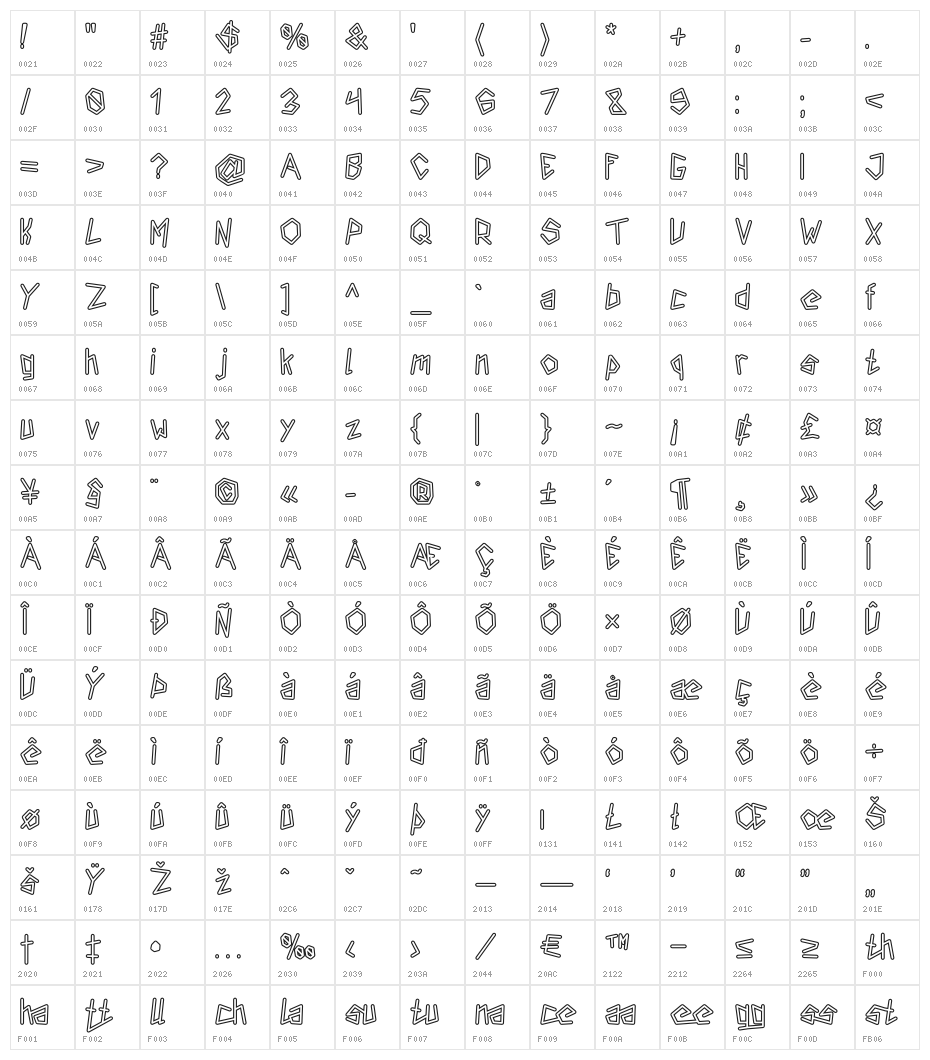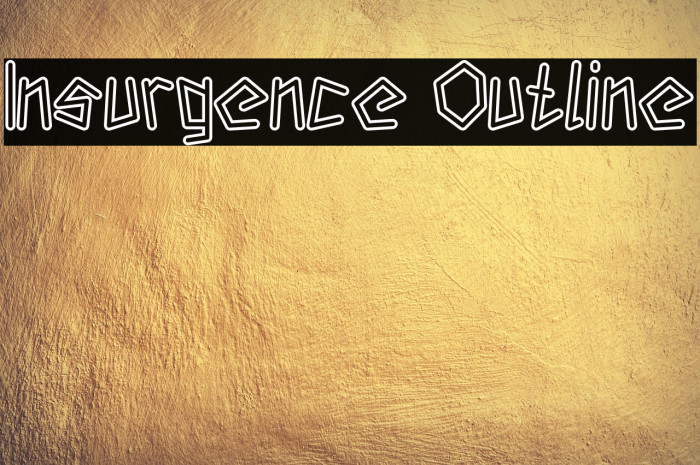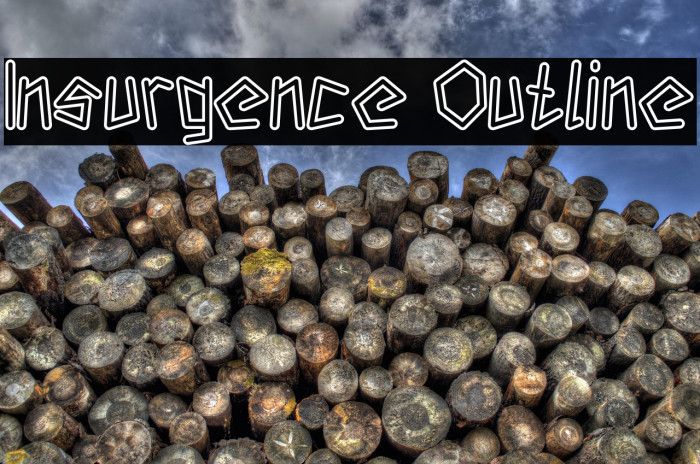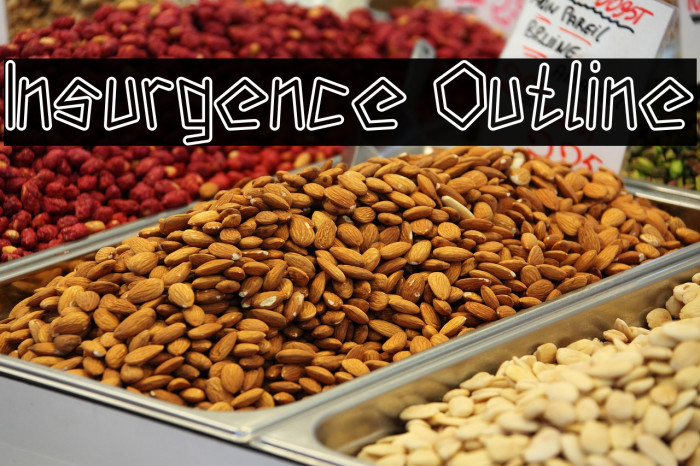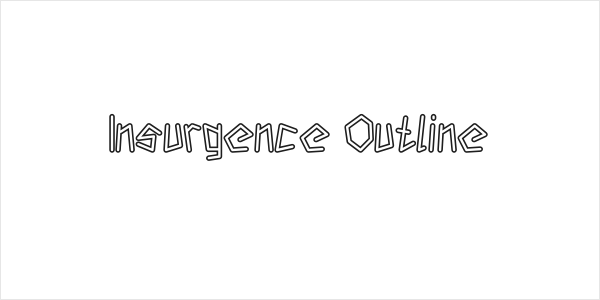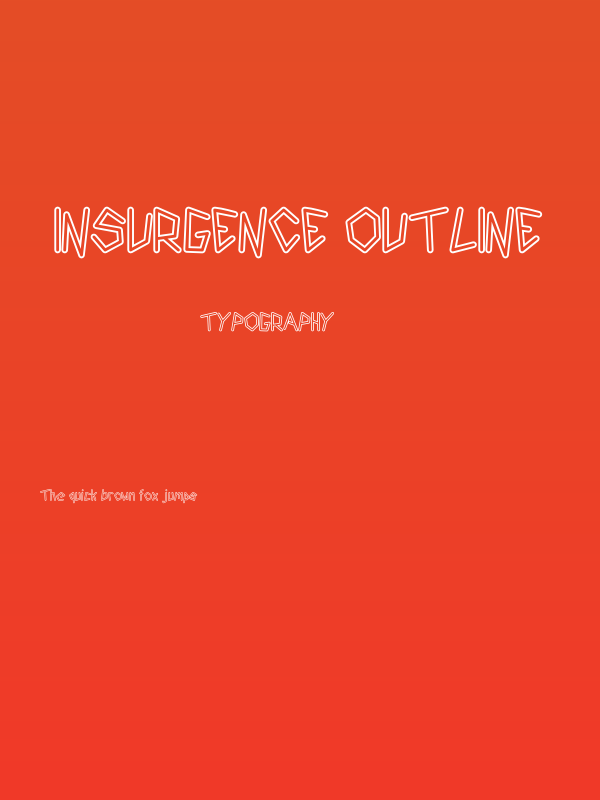
Insurgence Outline Font
Insurgence Outline Description
This font features a bold, geometric outline style that gives it a modern and edgy appearance. Each character is crafted with sharp angles and clean lines, creating a sense of movement and energy. The uppercase and lowercase letters maintain a consistent style, with a playful yet structured form. Numbers and special characters are designed to match the overall aesthetic, making the font versatile for various uses. The outline effect adds a unique dimension, making it stand out in any design project.